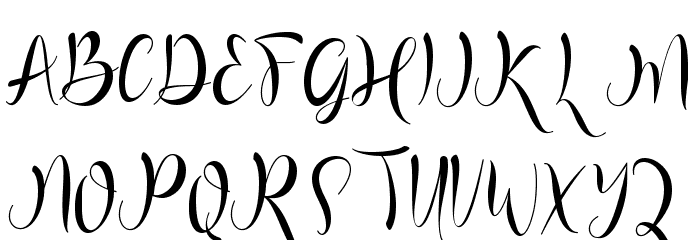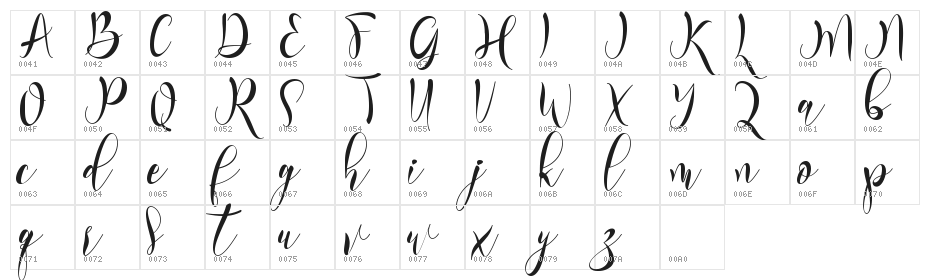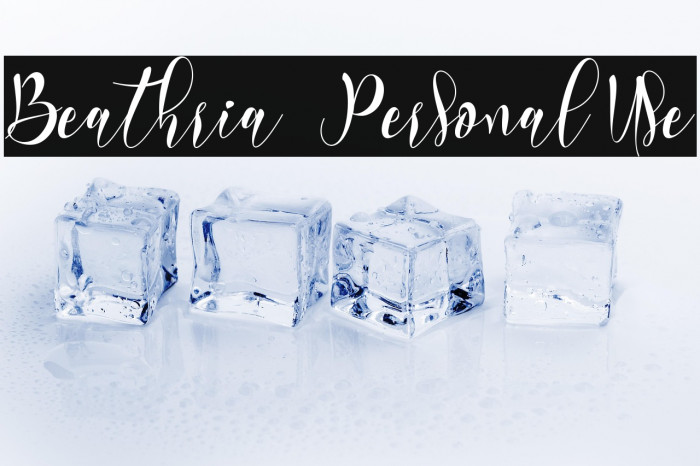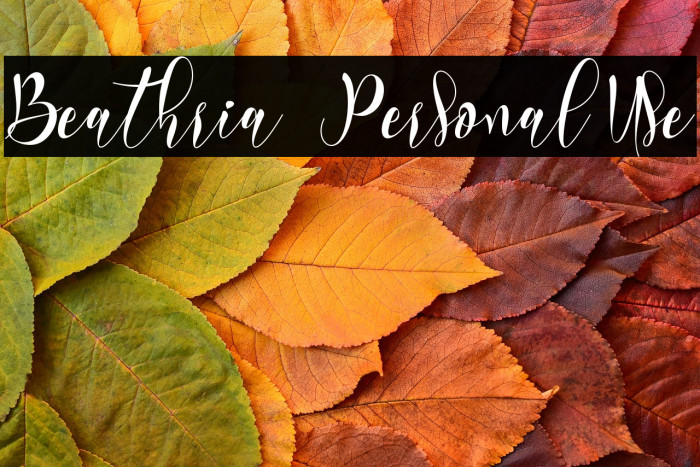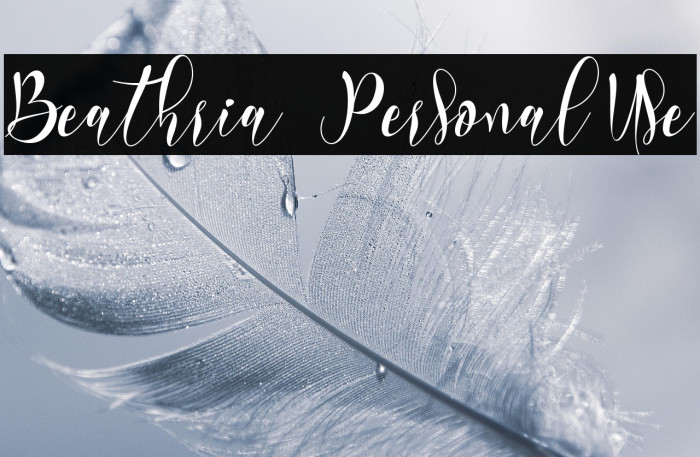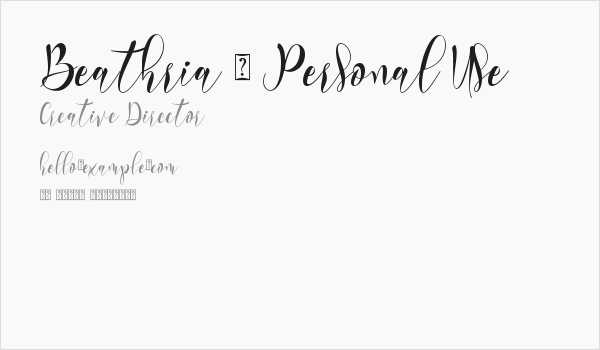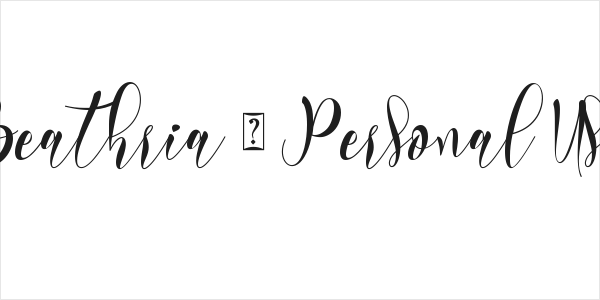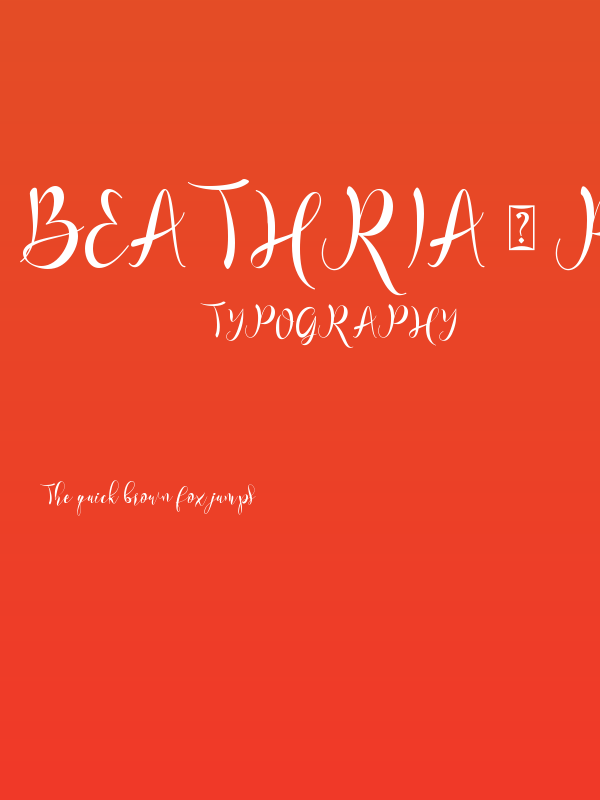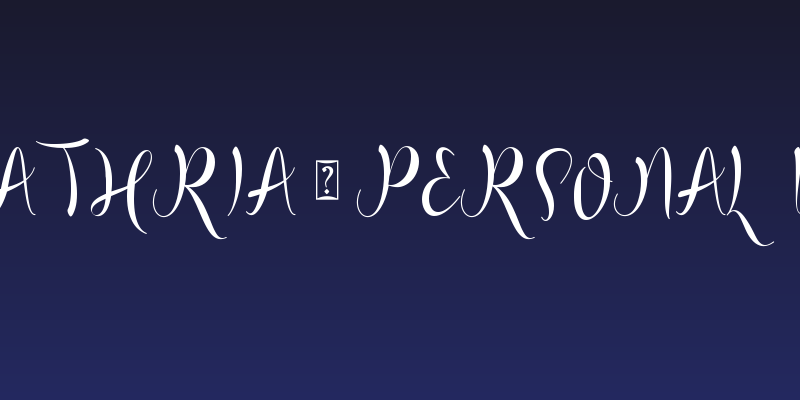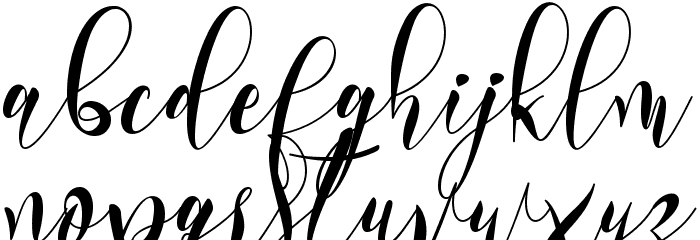
Beathria - Personal Use Font
Beathria - Personal Use Description
This font features an elegant and flowing script style, characterized by its sweeping curves and delicate strokes. The letters are interconnected, creating a sense of fluidity and movement. The uppercase letters are bold and expressive, while the lowercase letters maintain a graceful and refined appearance. The font exudes a sense of sophistication and is reminiscent of traditional calligraphy, making it suitable for formal and decorative purposes. Its artistic flair is evident in the intricate details and varying line thickness, which add depth and character to the overall design.
| Proposed Projects | Ideal for wedding invitations, greeting cards, branding, and elegant logos. |